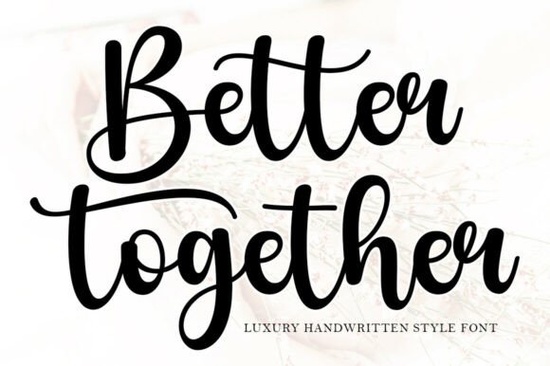
The Better Together Font is an elegant handwritten typeface with flowing strokes and a modern luxury feel. If you're working on wedding invitations, branding, or romantic quote designs, this font brings a graceful, sophisticated look without feeling overdone. Its stylish curves make it a solid choice for anyone who wants their text to feel personal and polished at the same time.
Whether you're a designer building a client brand, a crafter making custom products, or a print-on-demand seller looking for fresh script fonts to try, it's worth taking a closer look at what this typeface offers.
What Makes Better Together a Good Fit for Wedding Designs?
Wedding invitations need fonts that feel intimate and refined. Better Together checks both boxes. Its flowing letterforms mimic the look of hand-lettered calligraphy, which gives invitations, save-the-dates, and RSVP cards a personal, handcrafted quality.
Here's what stands out about this font for wedding projects:
- Graceful swashes and curves that add elegance without cluttering the design
- Readable at both large and small sizes, so it works for headers and supporting text
- Modern luxury aesthetic that pairs well with serif and sans-serif fonts
- Romantic tone that fits the mood of weddings, anniversaries, and engagement parties
If you've used the Sublimate typeface for elegant projects before, you'll find a similar level of refinement here but with a slightly softer, more romantic personality.
Which Projects Work Best with This Handwritten Font?
Better Together isn't limited to wedding stationery. Its versatile style works across many creative projects:
- Logo design especially for boutiques, florists, photographers, and lifestyle brands
- Social media graphics quotes, announcements, and promotional posts
- Greeting cards Valentine's Day, Mother's Day, and thank-you cards
- Print-on-demand products mugs, tote bags, t-shirts, and wall art
- Blog headers and website accents
- Book covers and chapter headings for romance or lifestyle genres
For crafters who sell on Etsy or similar platforms, this font can help you create designs that feel premium without a lot of extra effort. Pair it with a clean sans-serif for a balanced, professional result.
How Does It Compare to Other Script Fonts?
There's no shortage of script fonts available, so how does Better Together stack up against similar options? Here's a quick comparison:
- Stroke style: Better Together has smooth, flowing strokes less textured than something like a paint brush script typeface, which has a more hand-painted, rough-edged feel.
- Mood: It leans romantic and elegant, while the Milkshake typeface tends to feel more playful and casual.
- Versatility: Its modern luxury touch makes it flexible enough for both formal and semi-casual designs, similar to the Like Magic typeface, which also balances charm with readability.
The key difference is that Better Together sits in a sweet spot between formal calligraphy and casual handwriting. It doesn't feel stiff, but it's not overly relaxed either. That middle ground is what makes it useful for so many types of projects.
How Can You Pair This Font with Other Typefaces?
Good font pairing can make or break a design. Here are a few combinations that work well with Better Together:
- Better Together + a clean sans-serif (like Montserrat or Poppins) for modern, minimal layouts
- Better Together + a classic serif (like Playfair Display) for a luxurious, editorial feel
- Better Together + a simple sans-serif in all caps for strong contrast in logo and branding work
When pairing fonts, keep the script as your feature font and use the secondary typeface for supporting text. This keeps the design clean and easy to read.
Quick Checklist for Your Next Project
Before you start designing with Better Together, run through this list:
- Define the mood Does your project call for romance, elegance, or sophistication?
- Choose a pairing font Pick a clean sans-serif or classic serif to complement it
- Test at multiple sizes Make sure it reads well in both large headings and smaller text
Tip: Start with a simple project like a single quote card or social media graphic to get a feel for how the font behaves before using it in a larger design system.